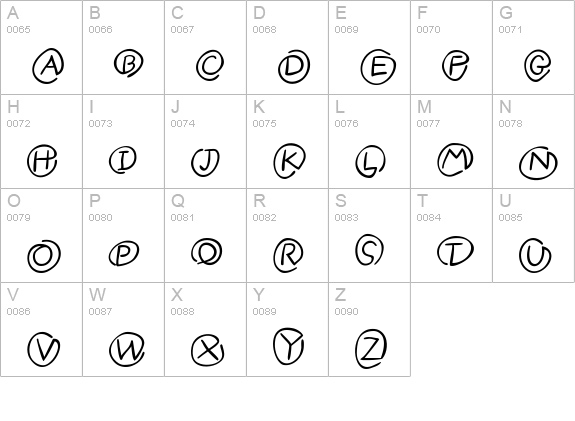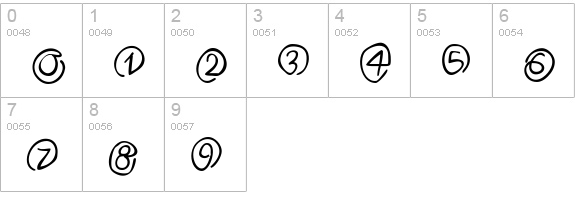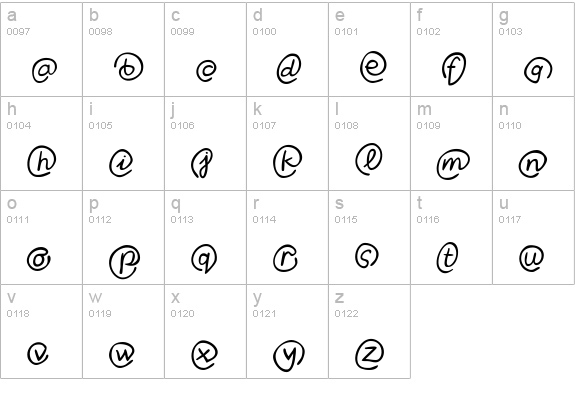
Klammeraffen-Italic Font Details
Klammeraffen-Italic is a distinctive, italic variant in the Klammeraffen typeface family \xE2\x80\x94 well suited to design and typography projects.
Introducing Klammeraffen-Italic, a visually captivating and versatile font that effortlessly combines elegance with a touch of playfulness. With its slanted and italicized design, this font exudes a sense of dynamic energy, making it perfect for projects that aim to leave a lasting impression. Klammeraffen-Italic offers a unique twist on traditional typography, featuring sleek and curvaceous letterforms that are both eye-catching and legible. Its distinct personality ensures that your designs will stand out from the crowd, whether used in branding, advertising, invitations, or any creative endeavor that calls for a touch of sophistication. One of the most remarkable aspects of Klammeraffen-Italic is that it is freely available to download at FontsMarket.com. This means that you can enhance your projects with this stunning font without any financial constraints. Its accessibility allows designers, students, entrepreneurs, and anyone with a passion for typography to enjoy the benefits of high-quality design without breaking the bank. The versatility of Klammeraffen-Italic knows no bounds, as it seamlessly adapts to various design styles and themes. Its slightly slanted and italicized appearance adds a sense of movement and dynamism to any text, breathing life into your creations. Whether you're aiming for a modern and edgy look or a more classic and refined aesthetic, this font effortlessly complements and enhances your vision. Moreover, Klammeraffen-Italic offers an extensive character set, including uppercase and lowercase letters, numerals, punctuation marks, and a wide range of special characters. This comprehensive collection ensures that you have all the tools you need to bring your ideas to life, with the added bonus of creative freedom. So, if you're searching for a font that exudes elegance, versatility, and a touch of playfulness, look no further than Klammeraffen-Italic. Download it for free at FontsMarket.com and unlock a world of design possibilities. Let your creativity soar and captivate your audience with the distinctive charm of this remarkable font.